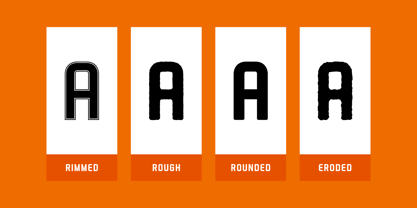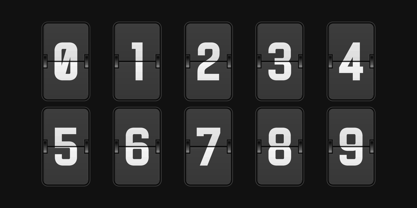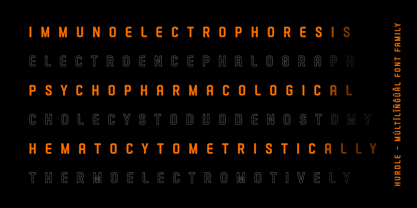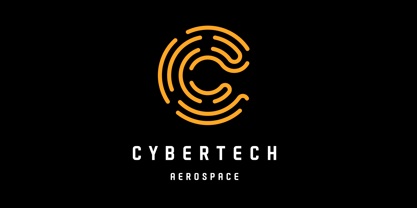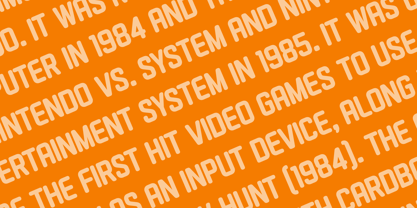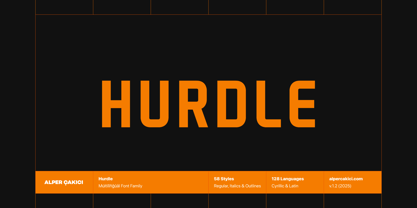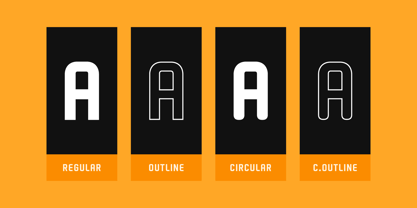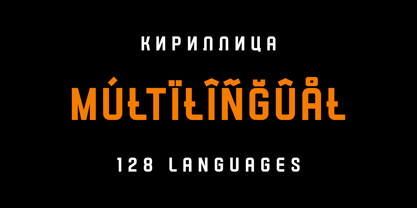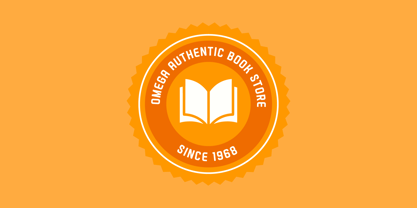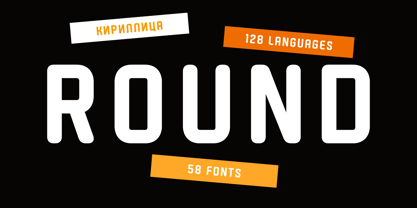
Hurdle
by AlperCakici
The Hurdle Font Family was designed by Alper Çakıcı and published by AlperCakici. Hurdle contains 58 styles and family package options. More about this family
Meet Hurdle, a clean and contemporary sans serif type family built for designers who value precision, readability, and sophisticated simplicity. Crafted with smooth curves, balanced forms, and purposeful geometry, Hurdle delivers a polished, modern voice across both print and digital environments. From corporate branding to user interfaces, editorial layouts to product packaging, Hurdle adapts effortlessly while maintaining a confident, timeless character. ✨ Why Choose Hurdle? Modern & Versatile: A refined sans serif aesthetic ideal for branding, UI/UX, advertising, signage, and editorial design. Geometric Precision: Clear shapes, smooth contours, and carefully engineered spacing ensure professional readability. Optimized for Digital & Print: Designed for crisp performance at all sizes—interfaces, apps, web, large-scale posters, and more. Global Language Support: Supports 128 languages across extended Latin, ensuring clear communication worldwide. Balanced, Professional Appearance: Neutral yet distinctive, making it suitable for corporate, creative, and tech-forward environments. 🌍 Multilingual Support – 128 Languages Includes extensive Latin coverage, supporting Afrikaans, Albanian, Basque, Catalan, Danish, Dutch, English, French, German, Italian, Spanish, Swedish, and many more—128 languages in total.